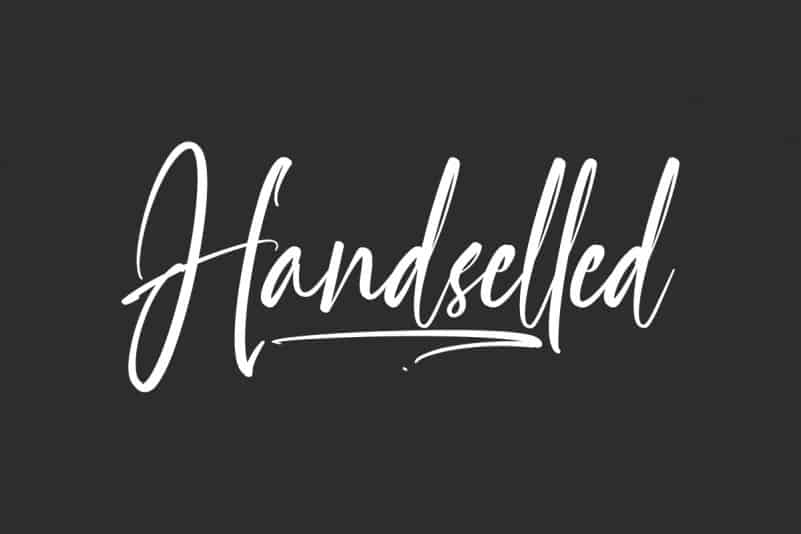
Handselled Font
Handselled Script Font
Handselled Script Font is a handmade brush font which is combining modern and classic typography look. This font is crafted carefully in every its single letter so we can make sure it has great looking, personal touch and This versatile scripts should make your designs instantly awesome and jaw-dropping!
Handselled Script Font includes full set of Uppercase and Lowercase Basic Characters, Numerals and Punctuation. Also it contains ligatures to make it flowless set font characters to perfectly make awesome look that add more aesthetic to perfect your extraordinary project.